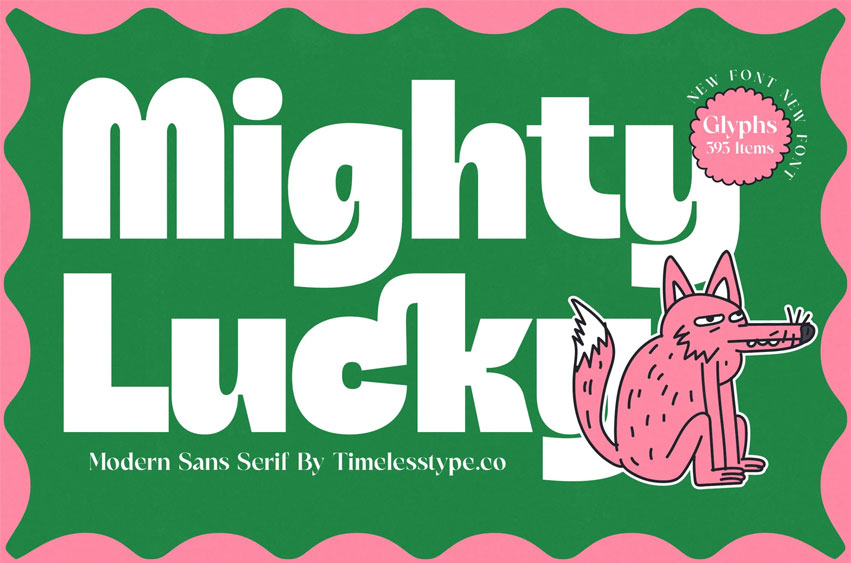
Mighty Lucky Font is a bold modern sans serif font with a fun and playful twist. Designed with smooth geometric shapes and a clean minimalist structure, it’s perfect for branding, packaging, posters, and social media visuals.
With 395 glyphs included, this typeface brings a contemporary yet friendly personality, making every design stand out with confidence and charm.